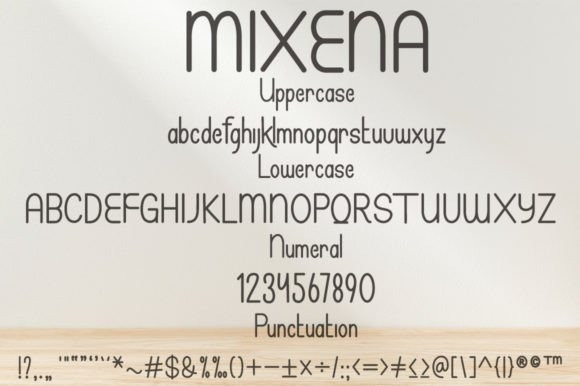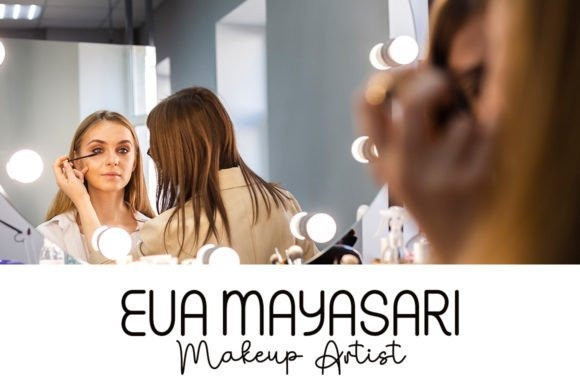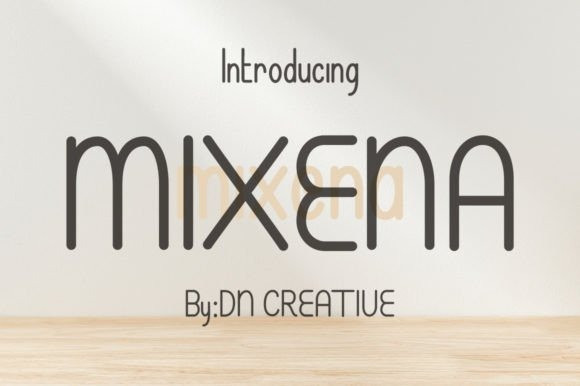
Mixena Font
Mixena Font is a minimalist and neat sans serif font. It can easily be matched to an incredibly large set of projects, so add it to your creative ideas and notice how it makes them stand out!